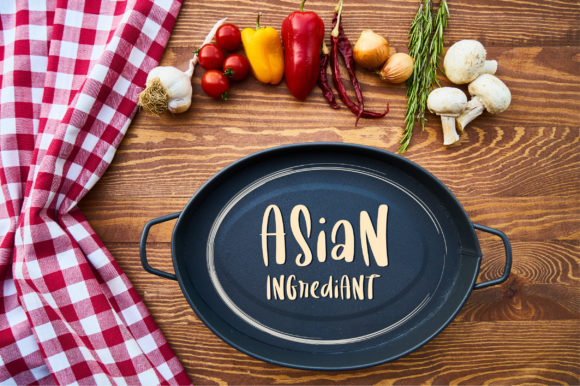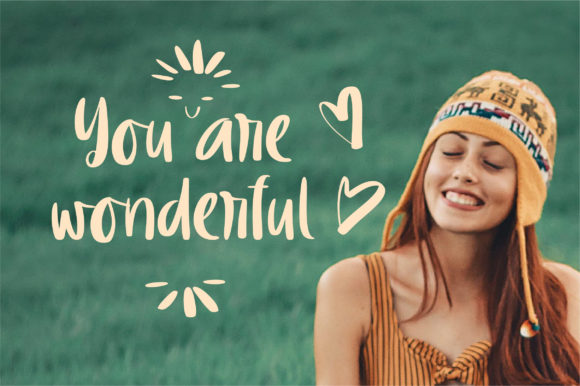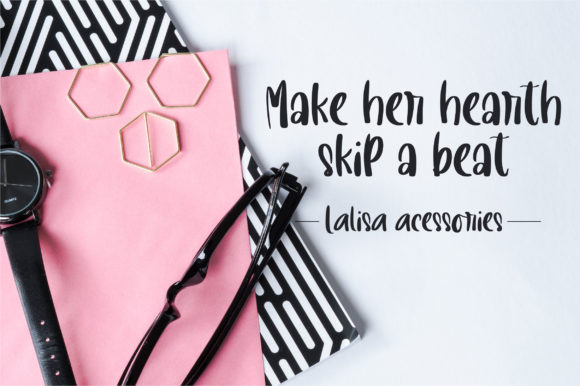
Introduction to LalisaLoveYou Font
LalisaLoveYou is a cheerful and friendly handwritten font.
It will elevate a wide range of design projects to the highest level, be it branding, headings, wedding designs, invitations, signatures, logos, labels, and much more .